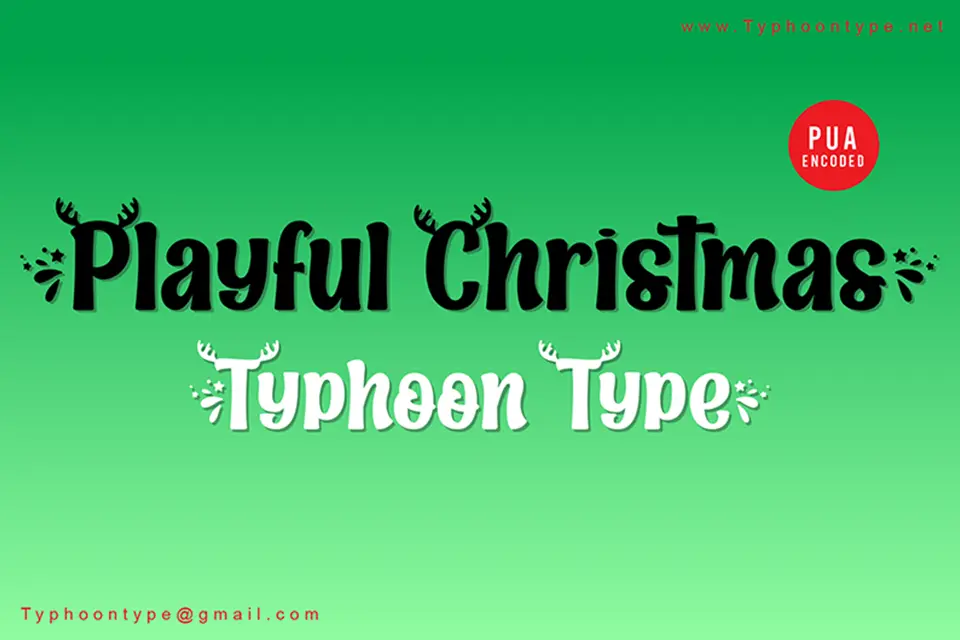
Playful Christmas Font
Playful Christmas Font is a friendly, fresh, rich, and elegant handwritten typeface, ideal for festive designs. It is characterized by its unique style, making it suitable for a variety of holiday-themed projects, such as greeting cards, invitations, and decorations.